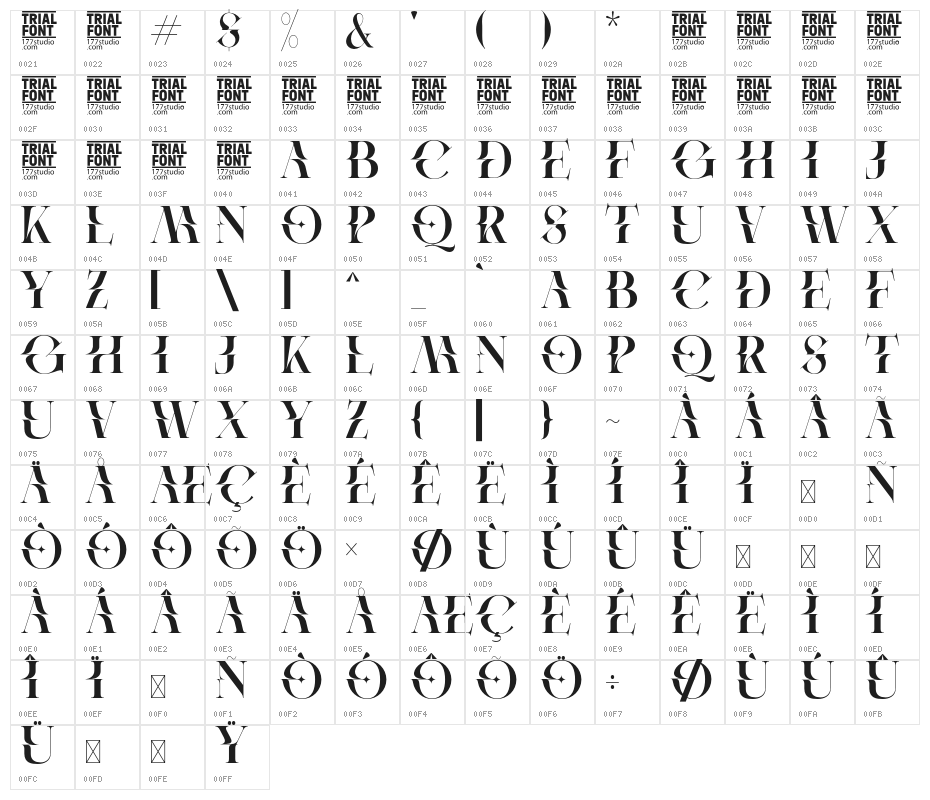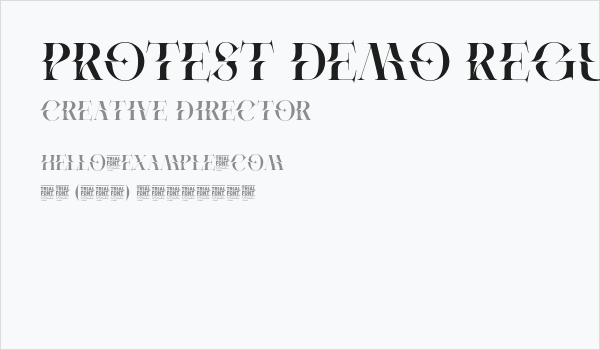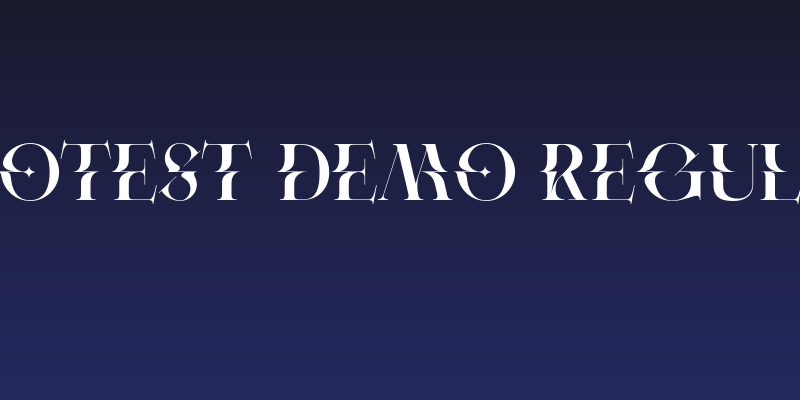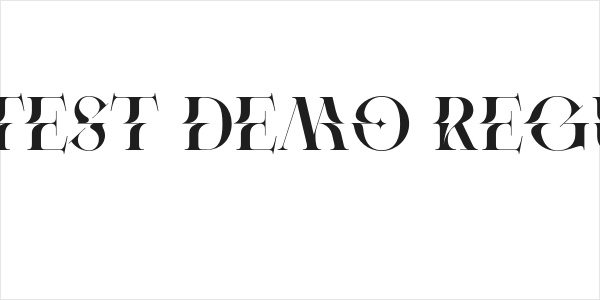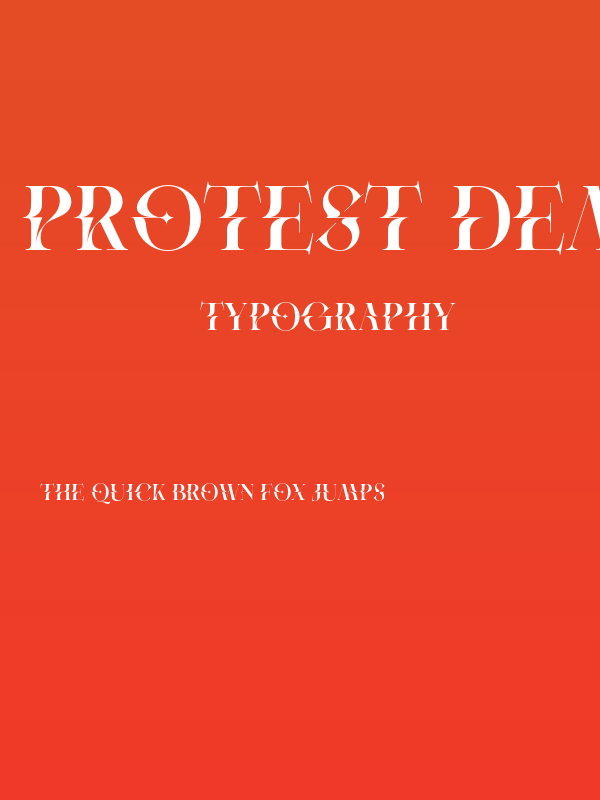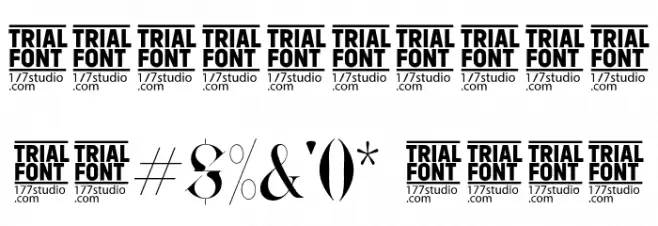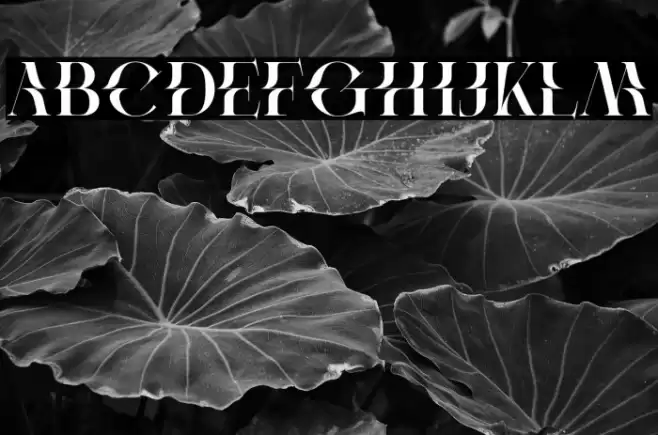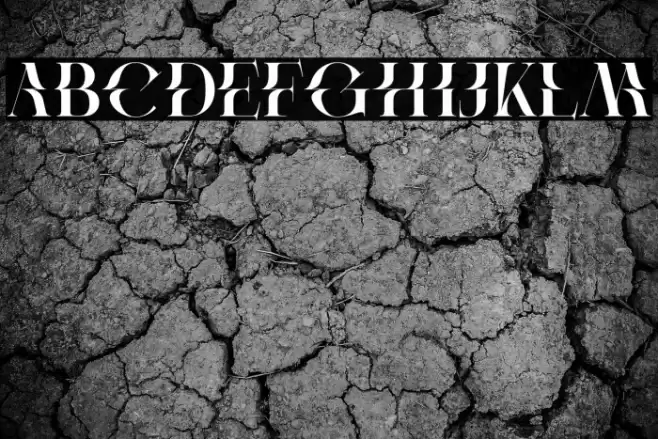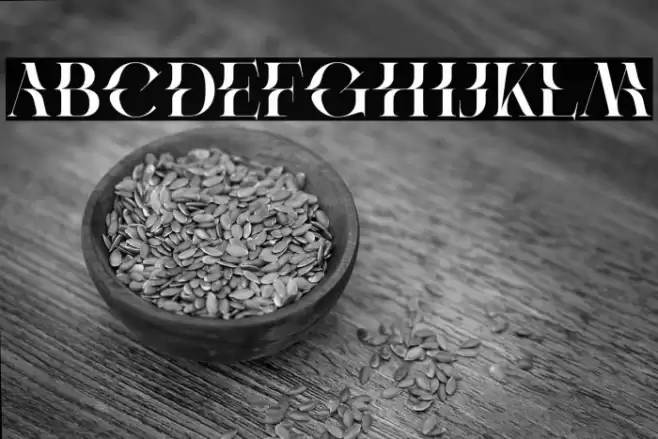
Protest Demo Regular Font
Protest Demo Regular Description
This font features a bold and striking design with high contrast between thick and thin strokes, creating a dramatic and eye-catching appearance. The letters are uniquely styled with sharp angles and curves, giving them a modern and edgy look. The uppercase letters are particularly distinctive, with some characters incorporating unexpected cuts and slashes that add to the font's dynamic feel. The overall design is both artistic and functional, making it suitable for a variety of creative projects. The font maintains a consistent weight throughout, ensuring readability while still offering a unique visual impact.
| Proposed Projects | Ideal for branding, posters, album covers, and editorial design. |